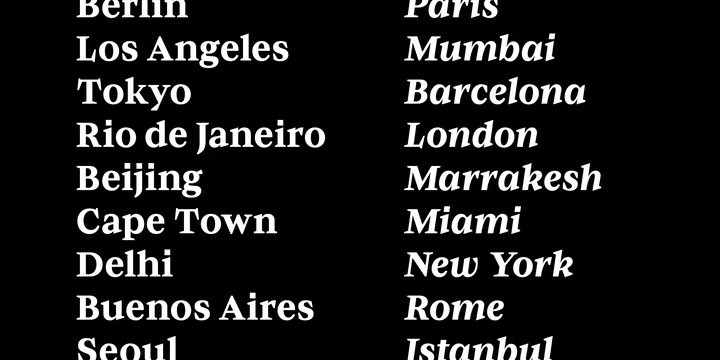
Baghira Font
It’s time to see our impressive font, Baghira Serif Font Family, Like its feline namesake from Kipling’s “Jungle Book”, Baghira has an elegant, smooth appearance and an impressive set of large, sharp teeth. With smoothly drawn curves, precisely placed corners, and rectangular dots, Baghira is a design rooted in the here and now. Its true italics gently allude to calligraphic roots, but overall, Baghira doesn’t follow any historical model. This cool cat sets his own standards.
Designed by Christian Gruber & Moritz Kleinsorge, the Baghira font family consists of 8 fonts, with 4 weights ranging from Regular to Bold. Its character set contains 800 characters per style and is suited to quality typography in editorial design, corporate design and advertising.